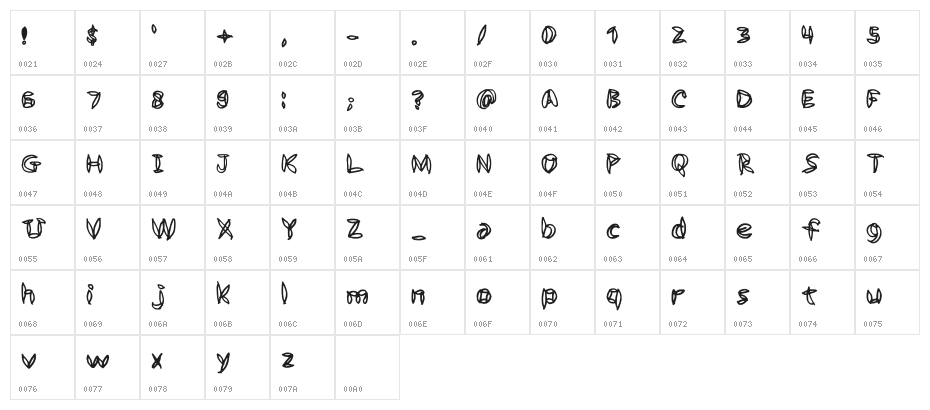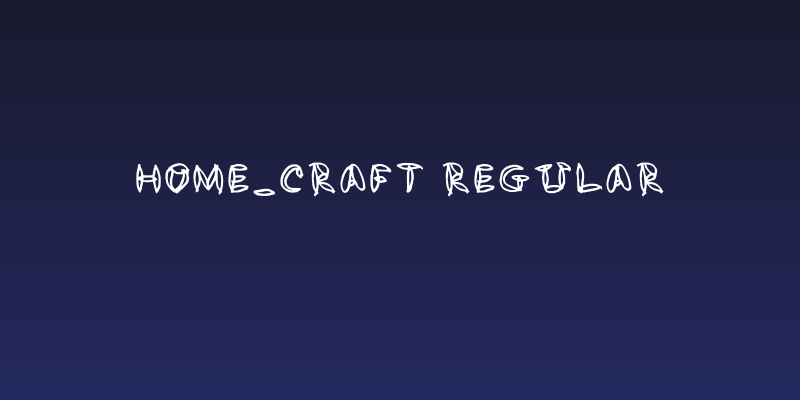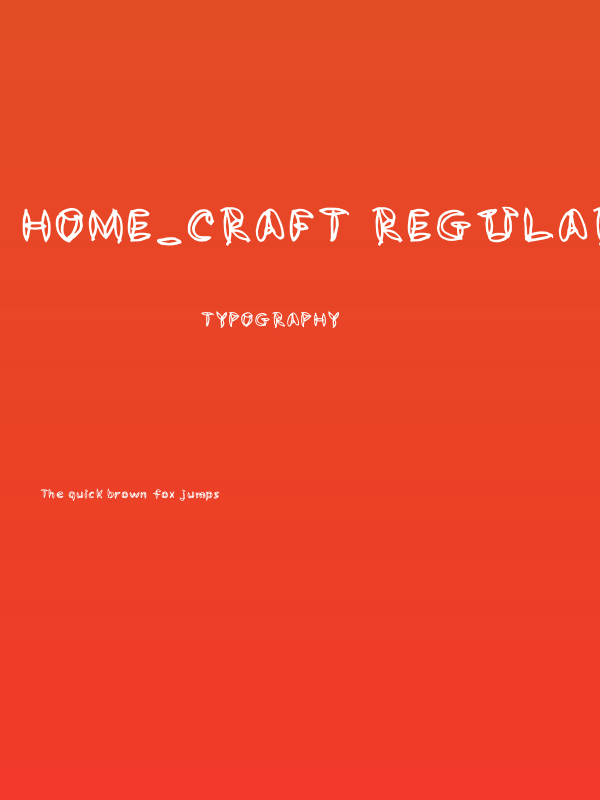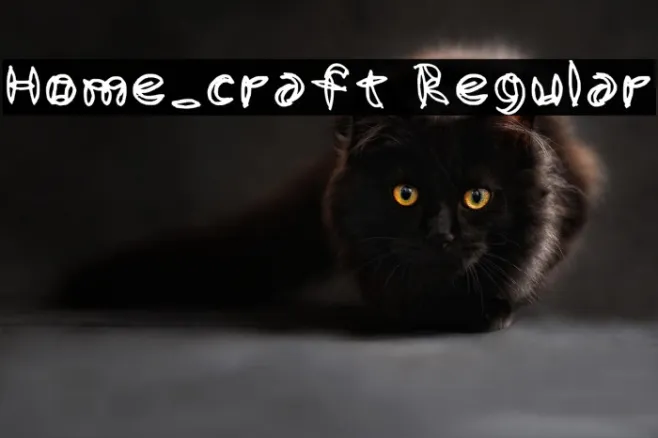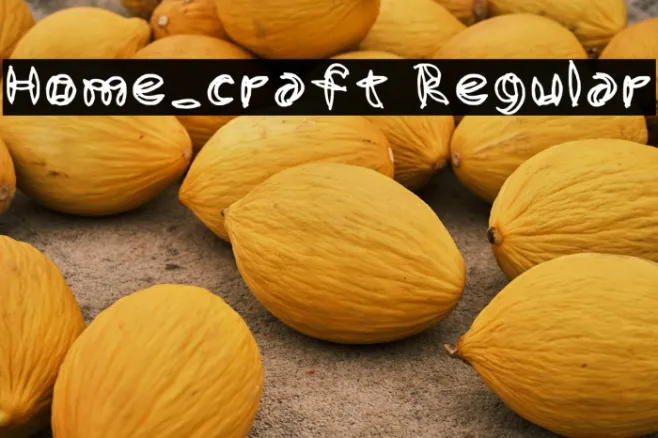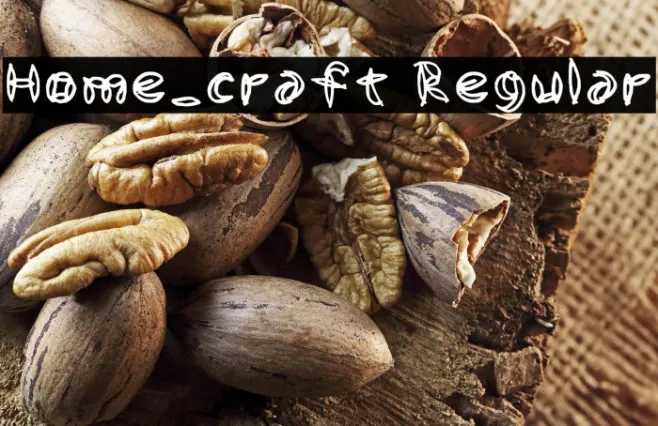
Home_craft Regular Font
Home_craft Regular Description
This font features a playful and artistic design, characterized by its hand-drawn appearance. Each letter is crafted with a unique, irregular stroke that gives it a whimsical and creative feel. The characters are bold and slightly distorted, adding to the font's charm and individuality. The uppercase and lowercase letters maintain a consistent style, with rounded edges and a casual flow. Numbers and special characters are equally expressive, making this font suitable for projects that require a personal touch. Its distinctive style makes it ideal for creative projects, adding a touch of personality and flair.